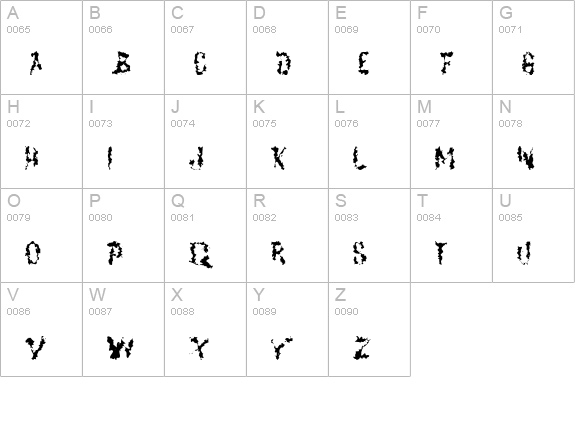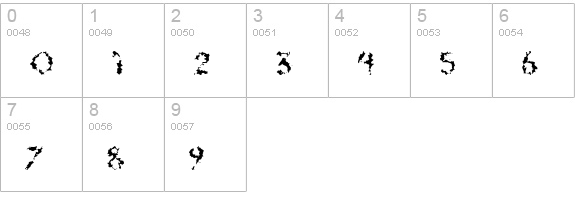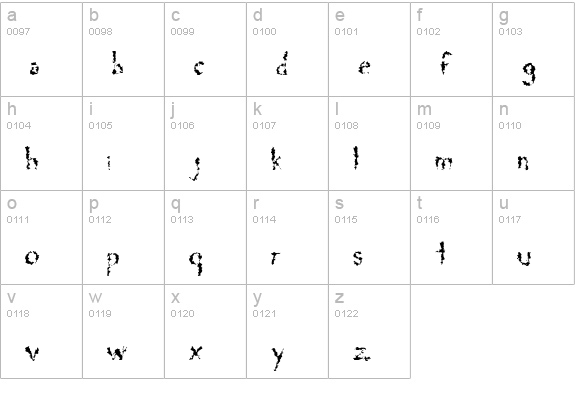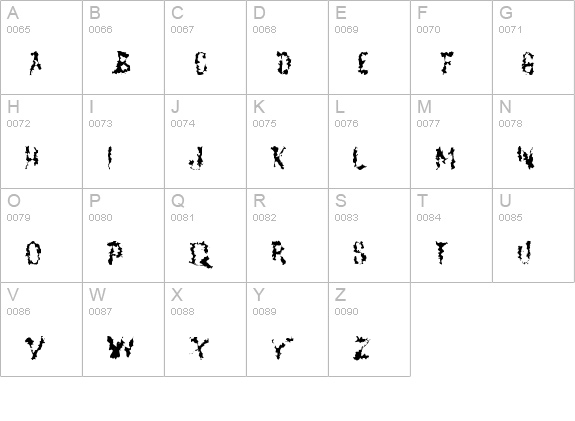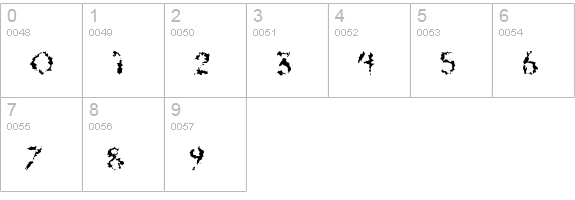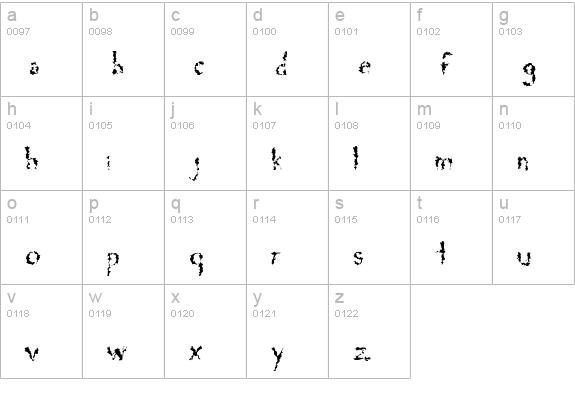
DeadGrit Font Details
Introducing DeadGrit font, a captivating display typeface that exudes a sense of ruggedness and raw energy. With its bold strokes and distressed edges, DeadGrit font is perfect for adding a touch of edge and rebelliousness to your designs. This versatile font can be used for various design projects, from posters to branding to merchandise. What sets DeadGrit font apart is not only its striking aesthetics but also the fact that it is available for free. Yes, you read that right - DeadGrit font is freely available to download at FontsMarket.com. Whether you're a designer looking to add some grit to your projects or a hobbyist exploring new fonts, DeadGrit font is a must-have addition to your font collection. Download it now and let your creativity run wild with this bold and dynamic typeface.